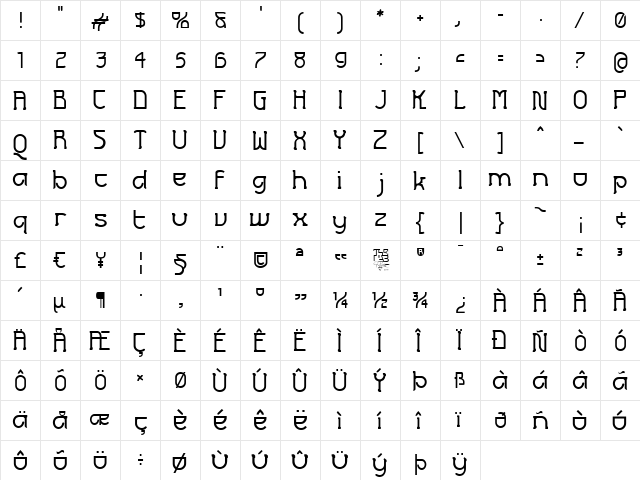
Futurex Crazyslab Regular
| Designer | Misha Shenbrot |
Design Context for Futurex Crazyslab Typeface
Futurex Crazyslab has a distinctly futuristic character, with geometric precision and clean angles that feel at home in technology, gaming, and sci-fi contexts.